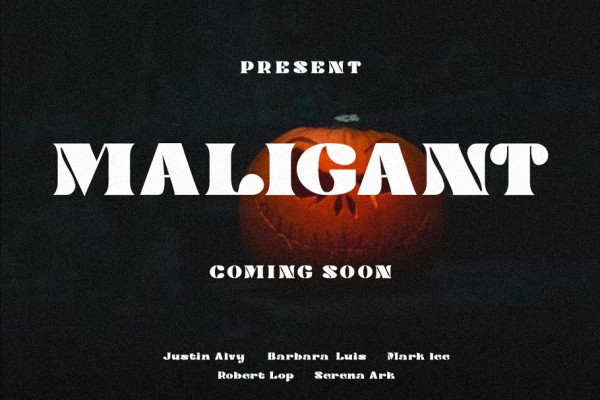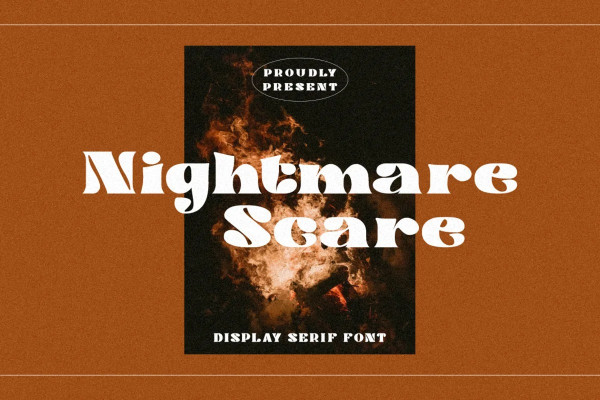
Nightmare Scare Font
Nightmare Scare Font – Modern Font is a bold and authentic display font. The font is suitable for any branding project like logo, t-shirt printing, esport, and many more. outstanding in a wide range of contexts.